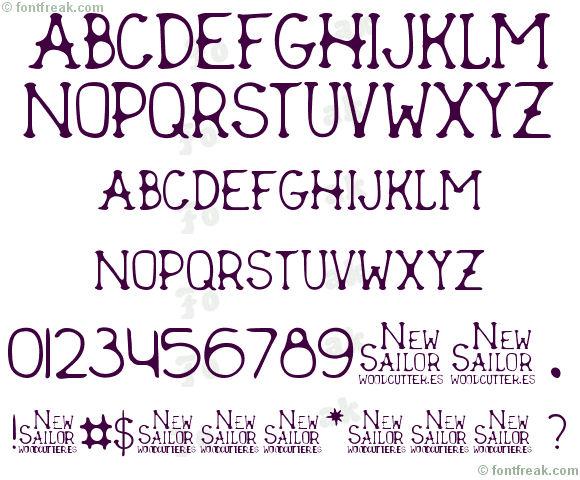
New Sailor
The New Sailor font, designed by woodcutter Manero, is a unique display typeface that captures the essence of nautical adventures with its distinctive charm. This font features a playful, handcrafted aesthetic that makes it stand out from traditional typefaces. With its moderate stroke weight and subtle contrast, New Sailor exudes a warm, inviting feel, enhanced by its slightly irregular lines that mimic the organic imperfections found in hand-carved lettering.
Visually, New Sailor showcases a combination of smooth curves and whimsical flourishes, creating a sense of movement that is both engaging and approachable. The spacing is well-balanced, allowing for easy readability while maintaining an artistic flair. Decorative elements, such as the stylized 'S' and the playful 'N,' further contribute to its character, making it an excellent choice for projects that require a touch of creativity.
This font is ideal for a variety of applications, including wedding invitations that seek a romantic touch, movie posters that aim to evoke a sense of adventure, and restaurant menus that want to convey a casual yet elegant atmosphere. Small business owners will also find New Sailor useful for branding purposes, as it helps create a memorable identity that resonates with customers. Content creators can leverage this font in social media graphics to add a distinctive visual appeal that captures attention.